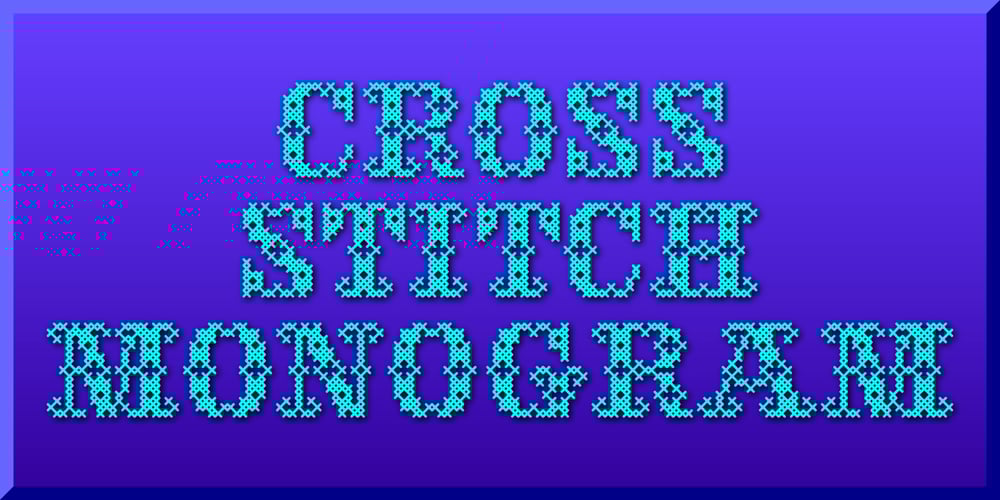
Cross Stitch Monogram
Cross Stitch Monogram font
Cross Stitch Monogram Font Family was designed by Gerald Gallo and published by Gerald Gallo. Cross Stitch Monogram contains 1 styles and family package options. Cross Stitch Monogram is based on upper case characters 15 stitches tall and contains the upper case characters A-Z, numbers 0-9, ampersand, and a selection of various simple ornaments.